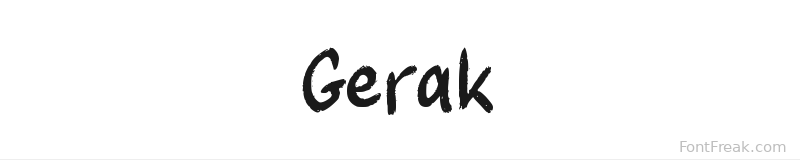
Gerak
Gerak is a captivating display font designed by Wahyu Eka Prasetya, classified as a decorative typeface. This font showcases a unique artistic style that combines bold, expressive strokes with a playful elegance, making it an excellent choice for various creative projects. The stroke weight varies, adding a dynamic quality to the letters, while the high contrast between thick and thin lines enhances its visual impact. The spacing between characters is thoughtfully designed, ensuring readability while maintaining a vibrant look, perfect for grabbing attention.
The Gerak font is versatile and suited for a range of applications. It shines in wedding invitations, where its artistic flair adds a personal touch to your special day. Additionally, it works beautifully for movie posters, where the boldness can capture the essence of the film's theme. Restaurant menus can benefit from Gerak's inviting nature, making dishes appear more appealing. Furthermore, this font is ideal for social media graphics, where it can create an eye-catching presence that stands out in a crowded feed.
What sets the Gerak font apart is its ability to balance artistry with functionality. This distinctive typeface not only captures the viewer's attention but also communicates messages effectively. With its artistic design and practical applications, the Gerak font free download is a must-have for anyone looking to elevate their design work.